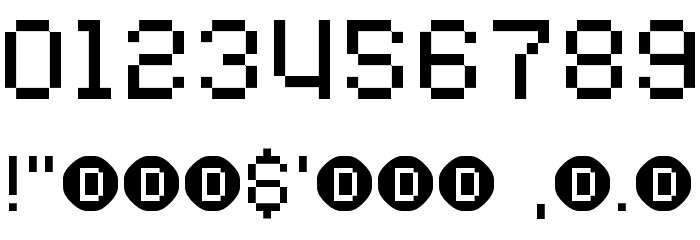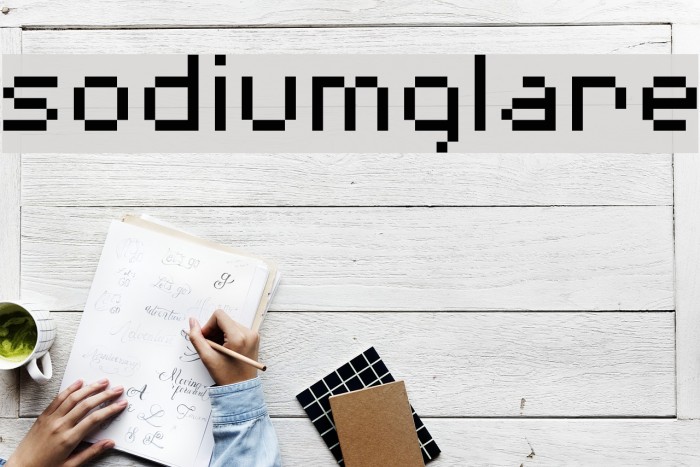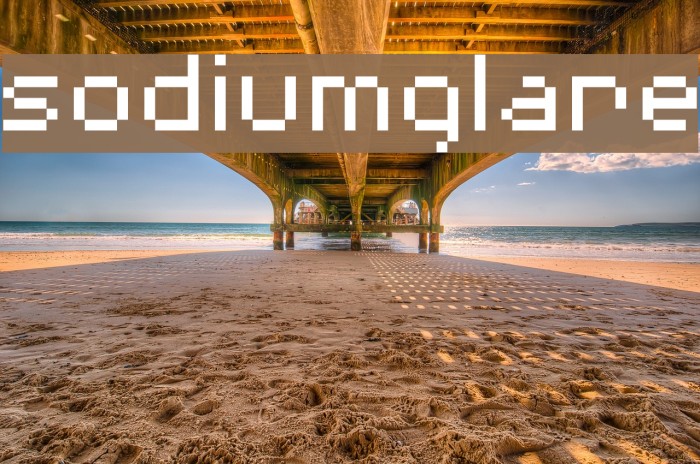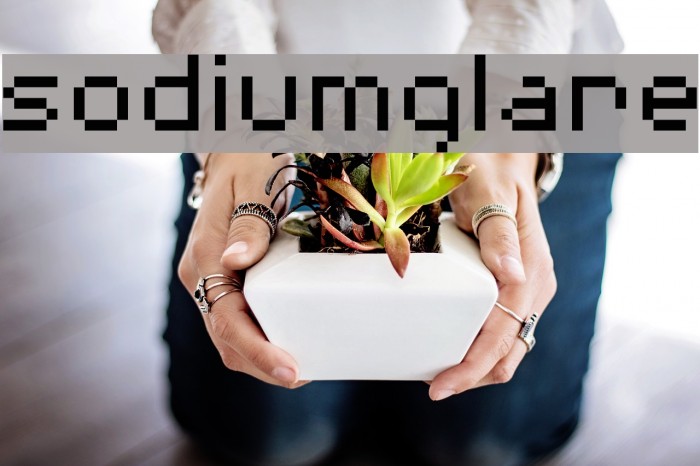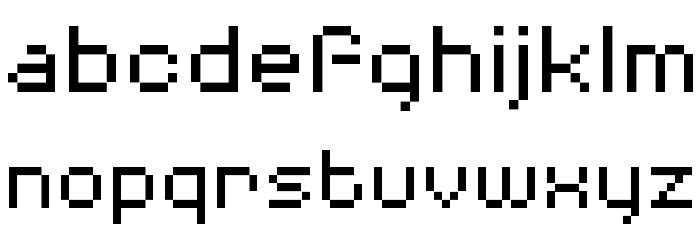
SodiumGlare Font
SodiumGlare Description
This font features a pixelated, blocky design reminiscent of early digital displays and retro video games. Each character is composed of uniform square blocks, giving it a distinctly digital and geometric appearance. The font maintains a consistent height and width across all characters, creating a monospaced effect. The uppercase and lowercase letters are similar in style, with slight variations in height. Numbers and special characters follow the same pixelated pattern, ensuring uniformity. This font's nostalgic style is perfect for projects that aim to evoke a sense of retro digital aesthetics.
| Overall Style | Retro, Digital |
| Use Case | Headlines, Logos, Digital displays |
| Proposed Projects | Ideal for video game design, retro-themed posters, digital art projects, and tech-related branding. |